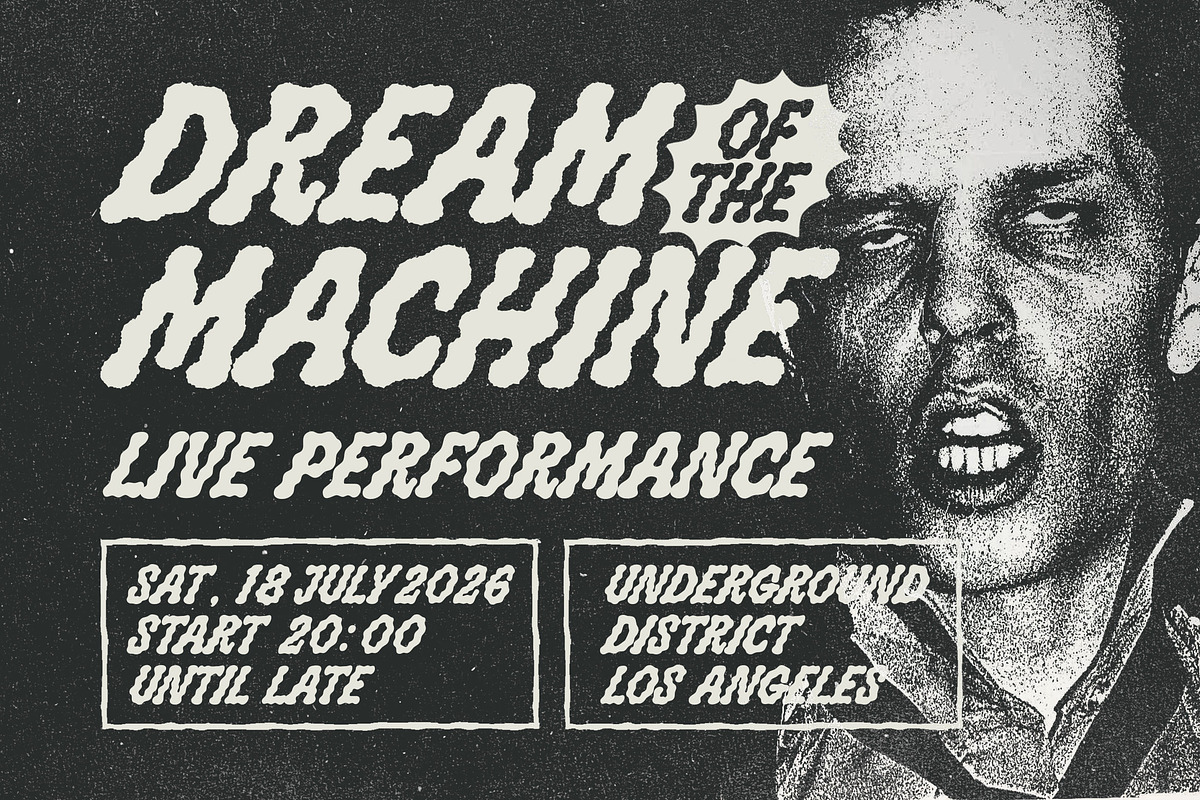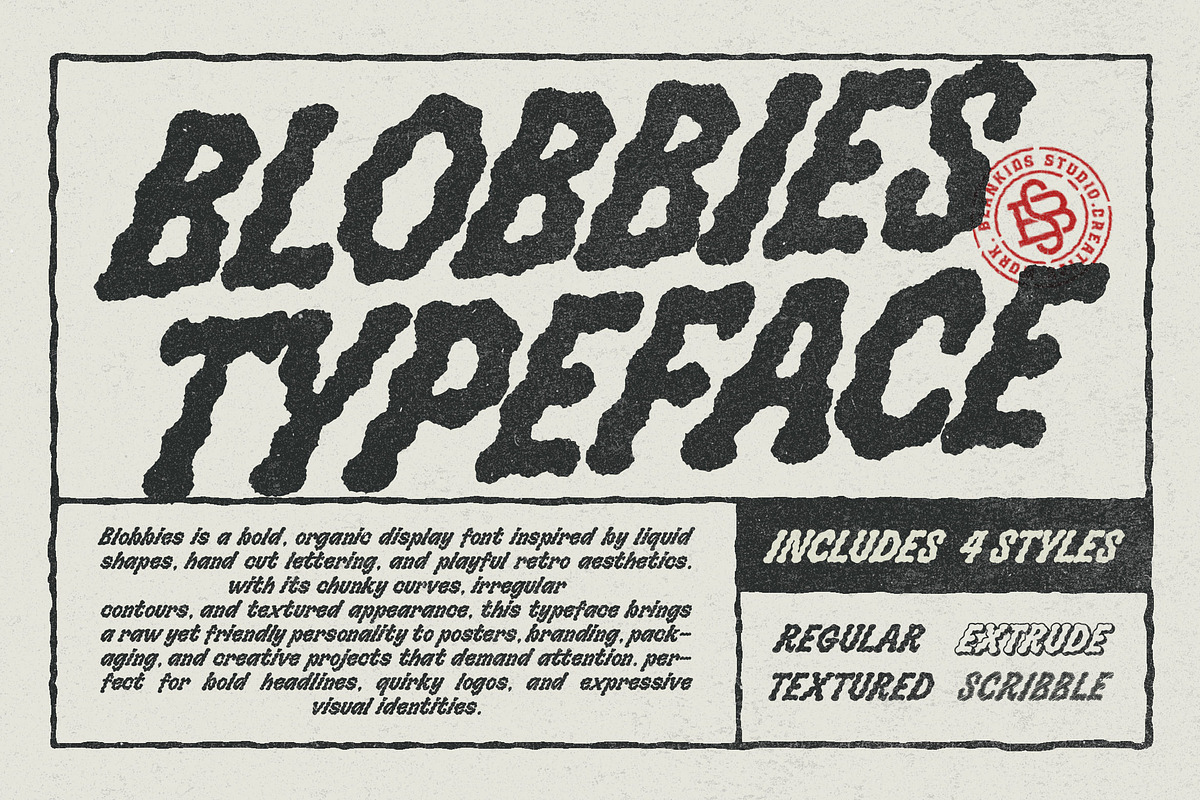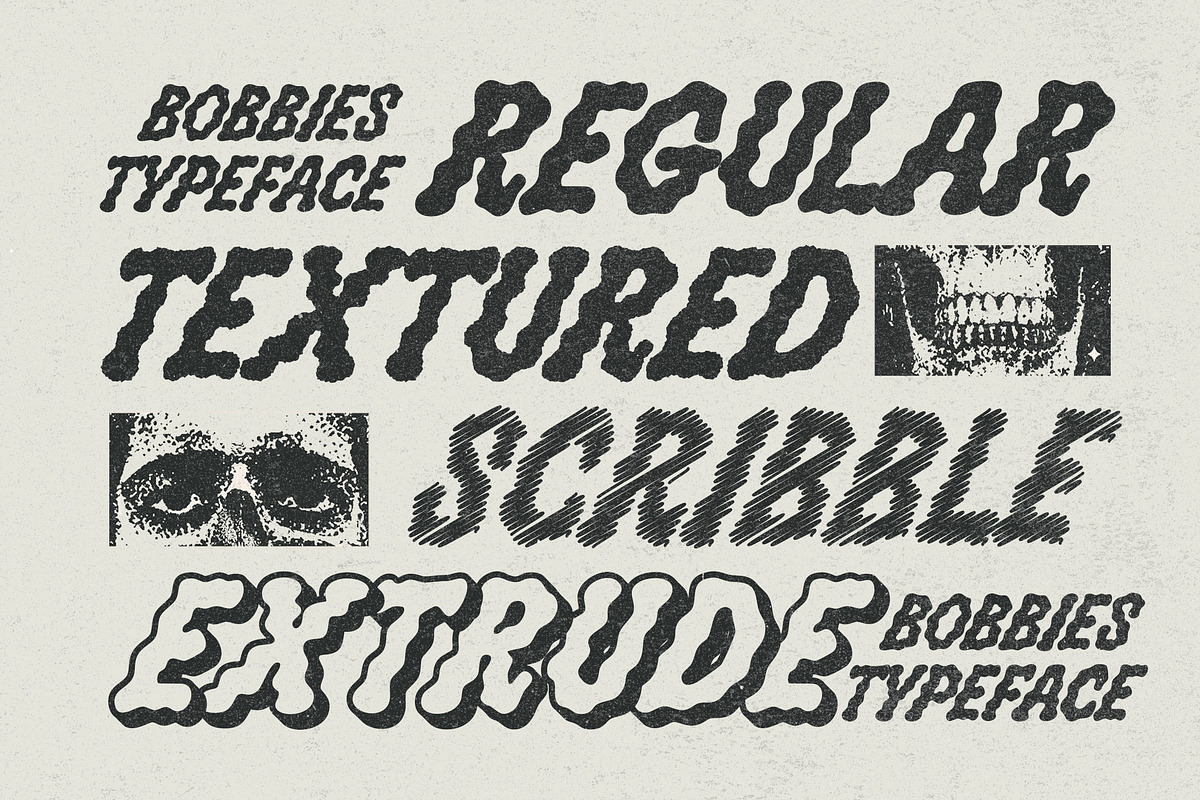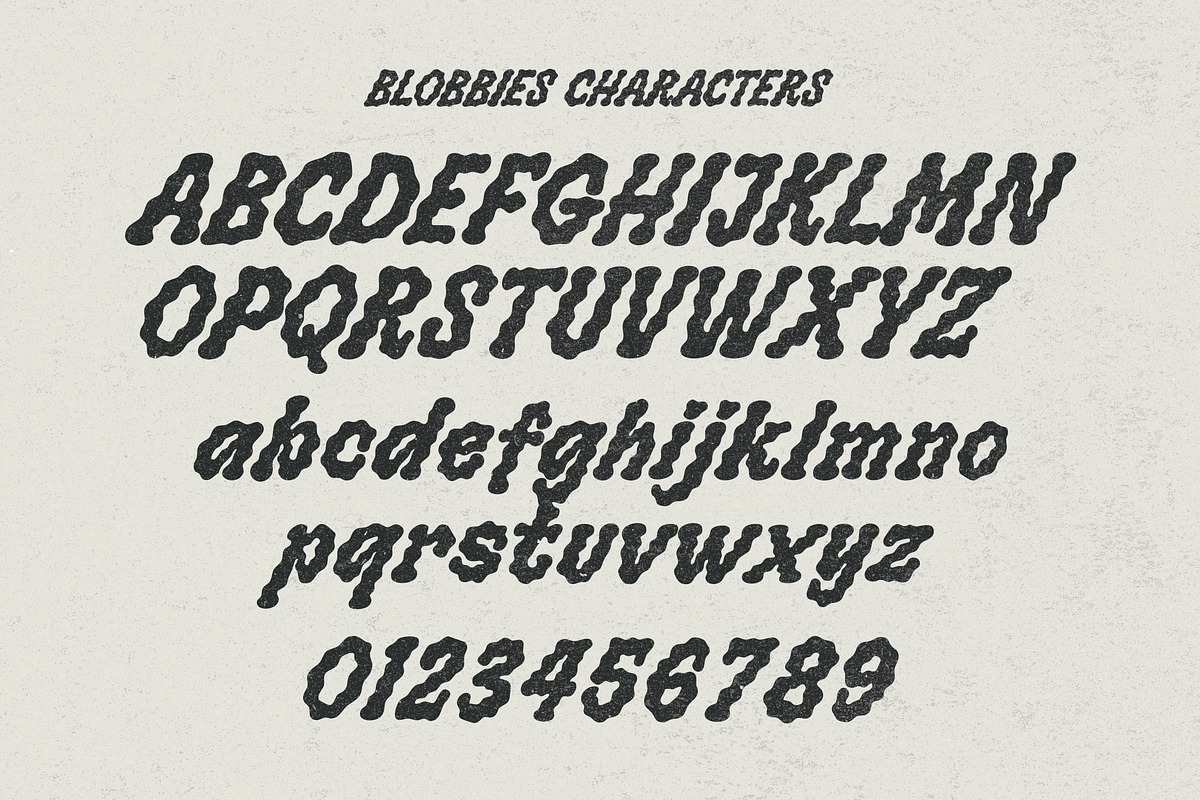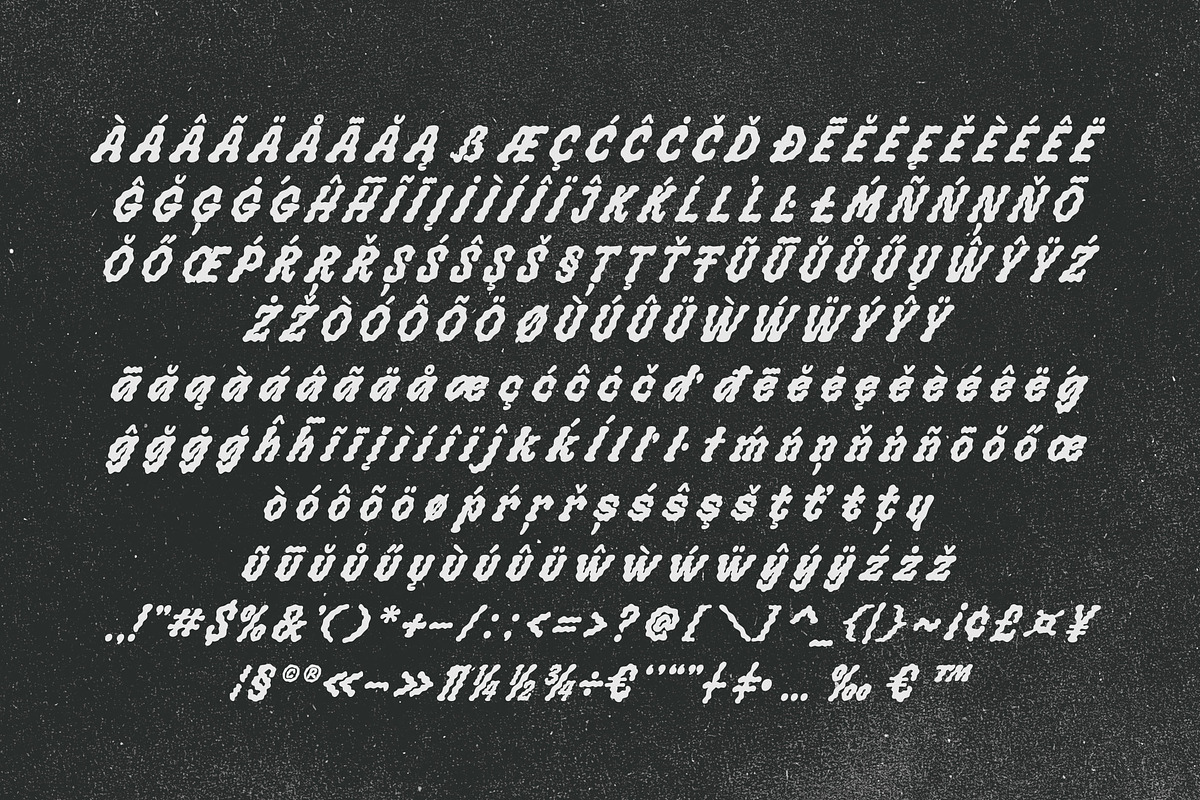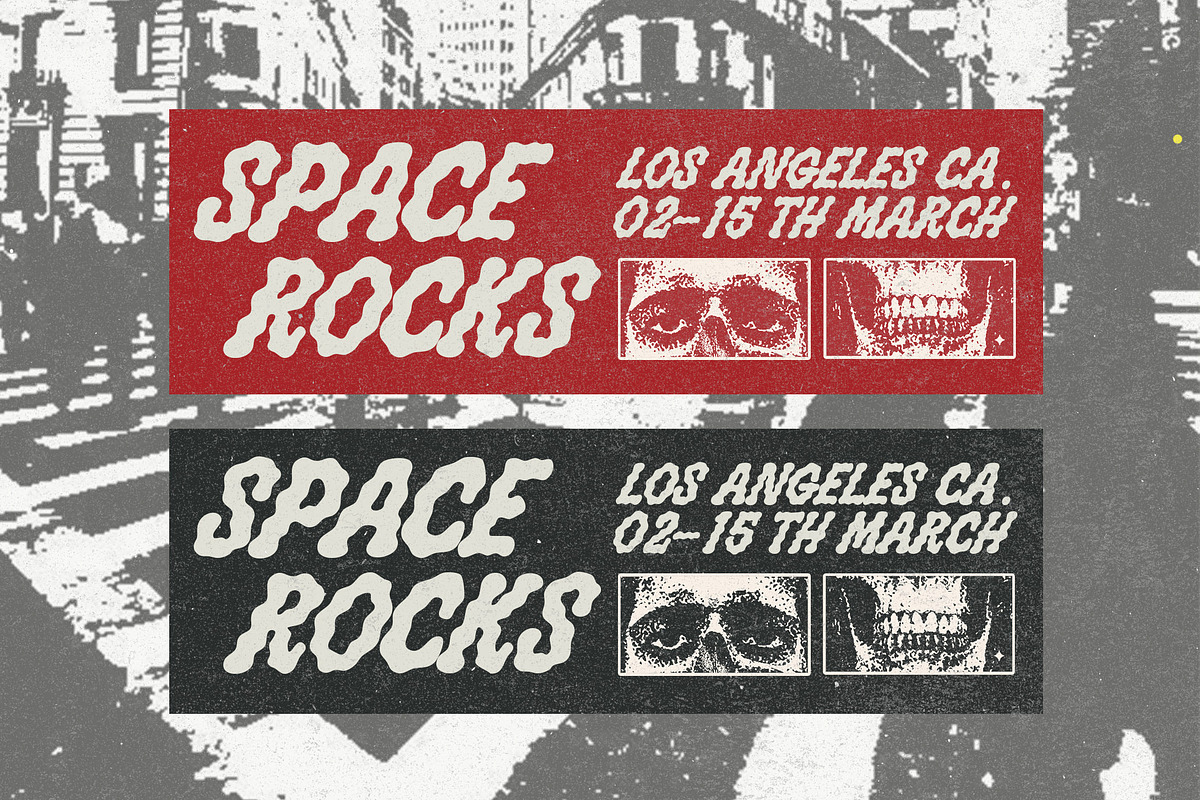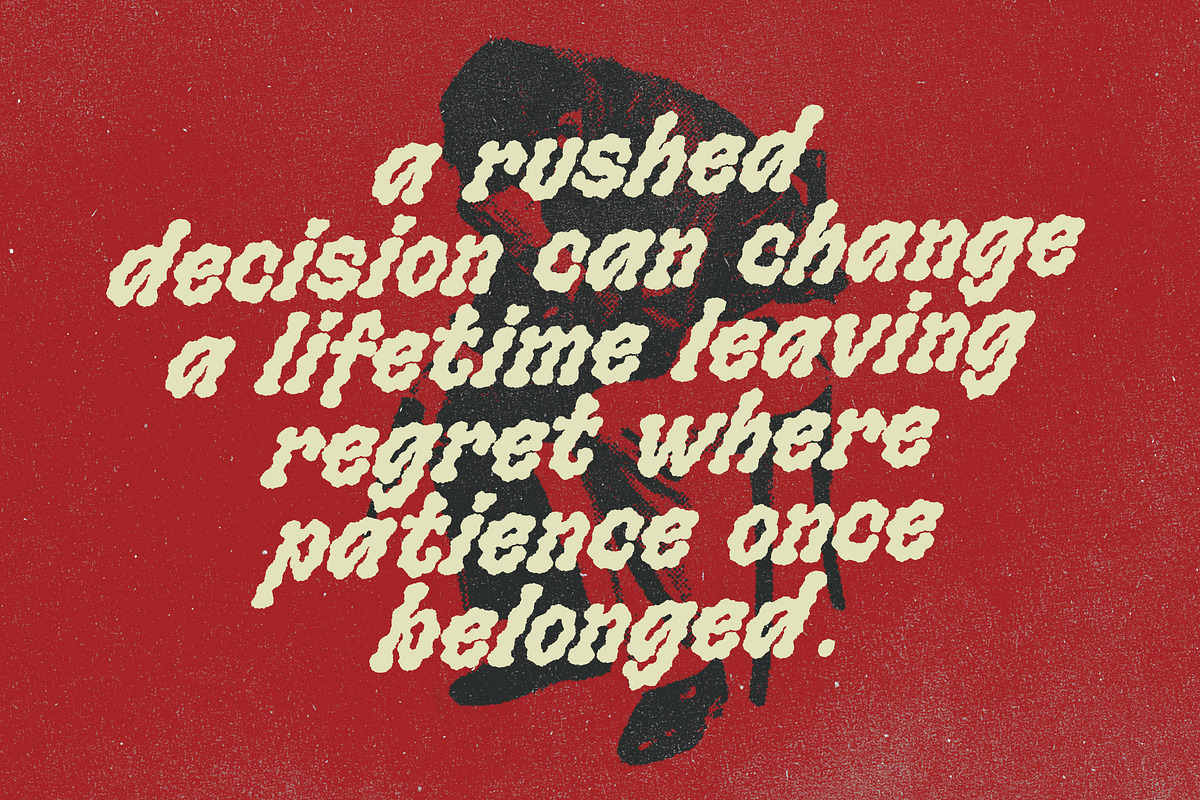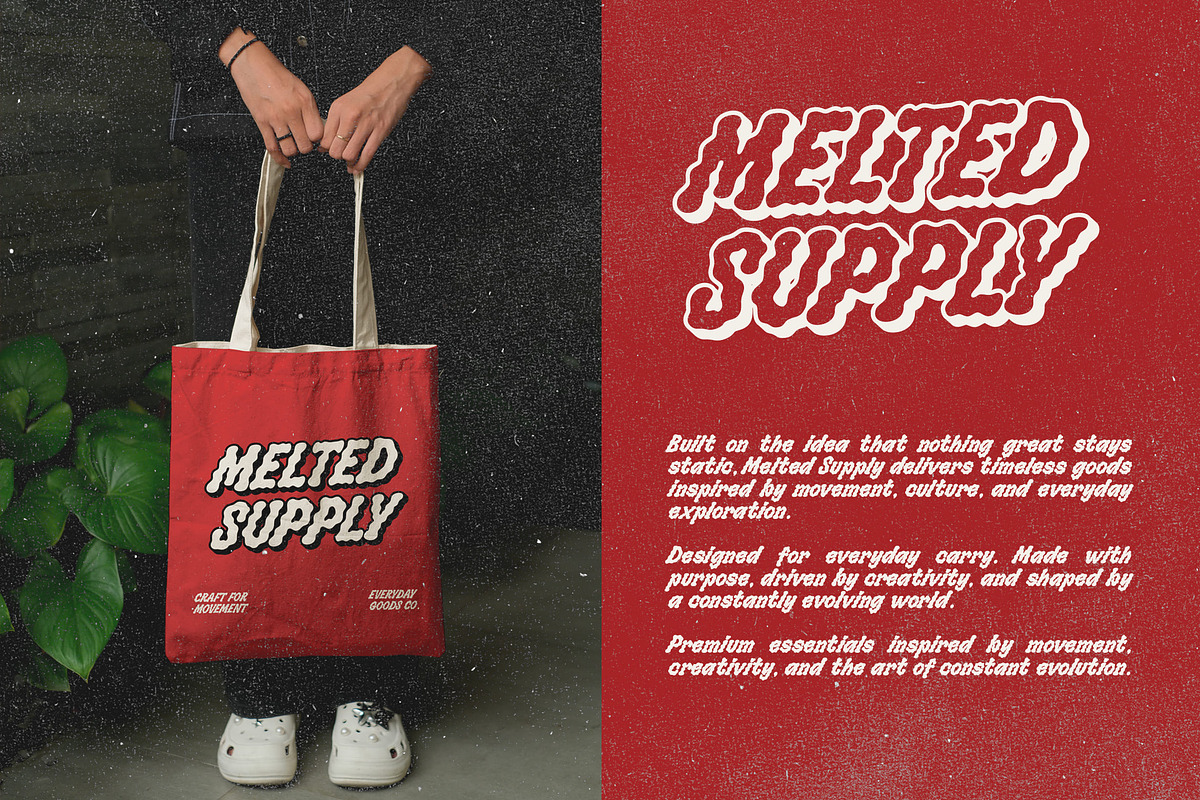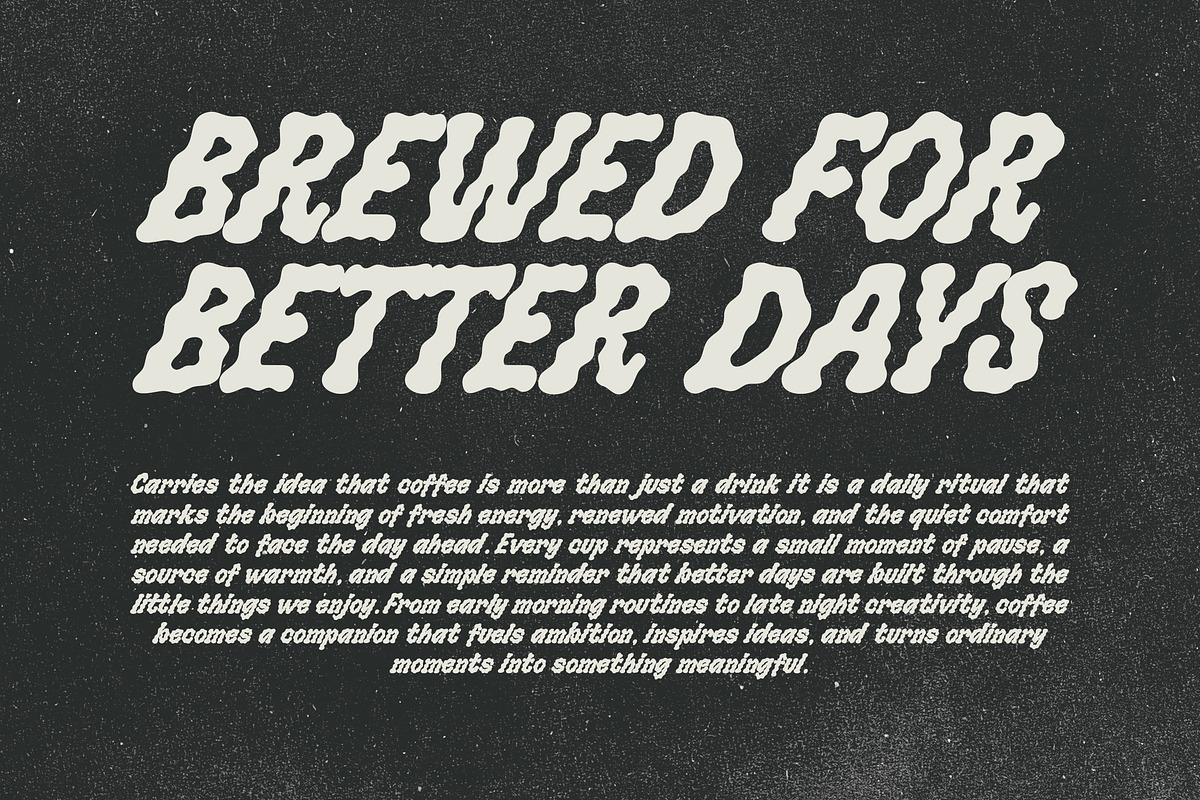
Bloobies – Wavy Display Typeface
Bloobies is a bold organic display font inspired by liquid shapes, hand-drawn lettering, and retro visual culture. Its chunky curves, textured edges, and playful character create a strong handmade look that instantly grabs attention.
Perfect for posters, streetwear branding, packaging, album covers, logos, social media graphics, and creative merchandise, Bloobies brings a fun, expressive, and energetic feel to any design. Whether you're creating vintage-inspired artwork or modern bold visuals, this font delivers a unique statement with personality and style.